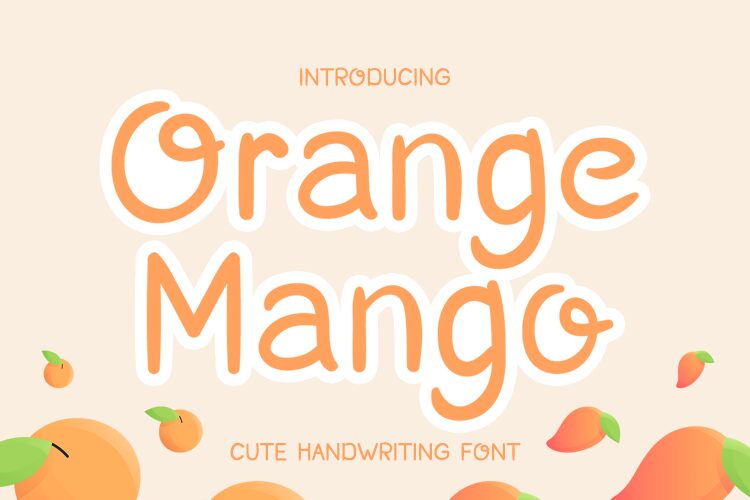
Orange Mango
Orange Mango is a charming semi-light font designed by Rangga Putra Budi Pratama that evokes a playful and whimsical feel. This cute handwritten font is perfect for children's book covers, greeting cards, and invitations. Its delicate strokes add a touch of warmth and friendliness to any design, making it suitable for social media graphics, branding materials, and even product packaging. With Orange Mango’s fun vibe and approachable style, this typeface is sure to capture the attention of your audience in a delightful way.